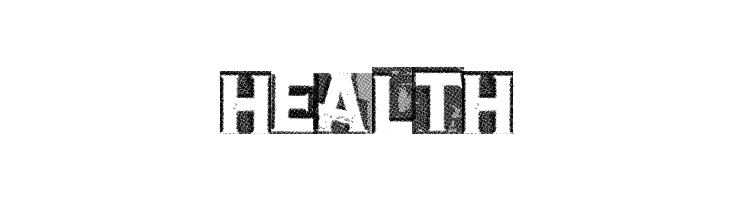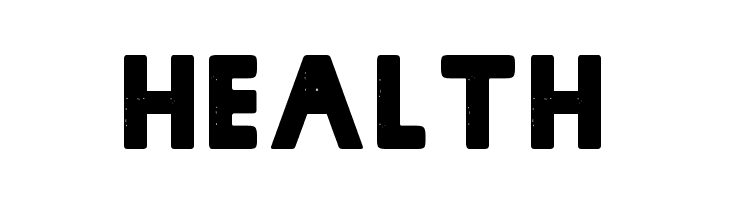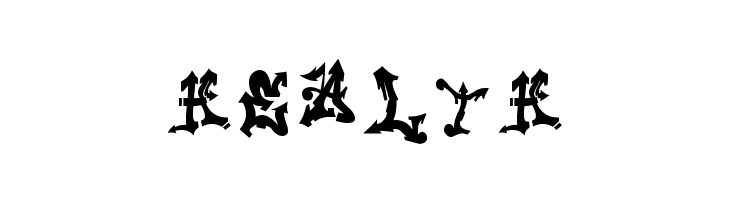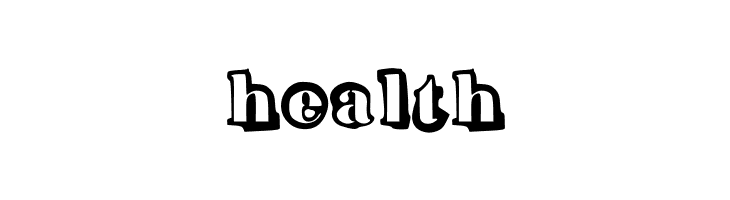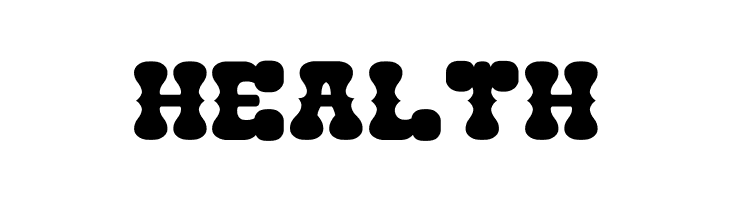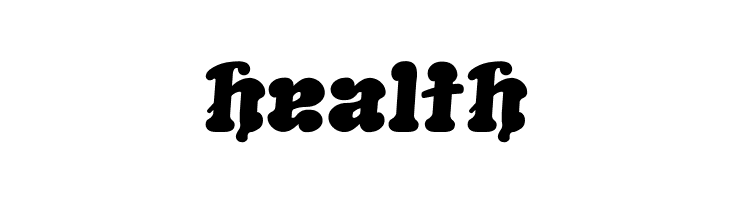
A bold, distressed industrial font with a vintage, rugged appearance.
A decorative font with a dripping, organic style, perfect for bold, eye-catching designs.
A bold, geometric font with a vintage, distressed texture.
An ornate, gothic-inspired font with intricate detailing and dramatic flair.
A bold, vintage-style font with a three-dimensional effect and strong serifs.
A bold, playful font with thick, rounded strokes and a unique, bubbly appearance.
A playful, bold font with a melting effect, perfect for creative designs.